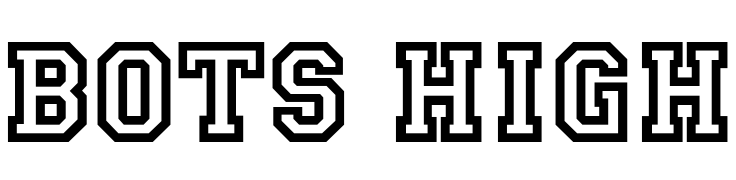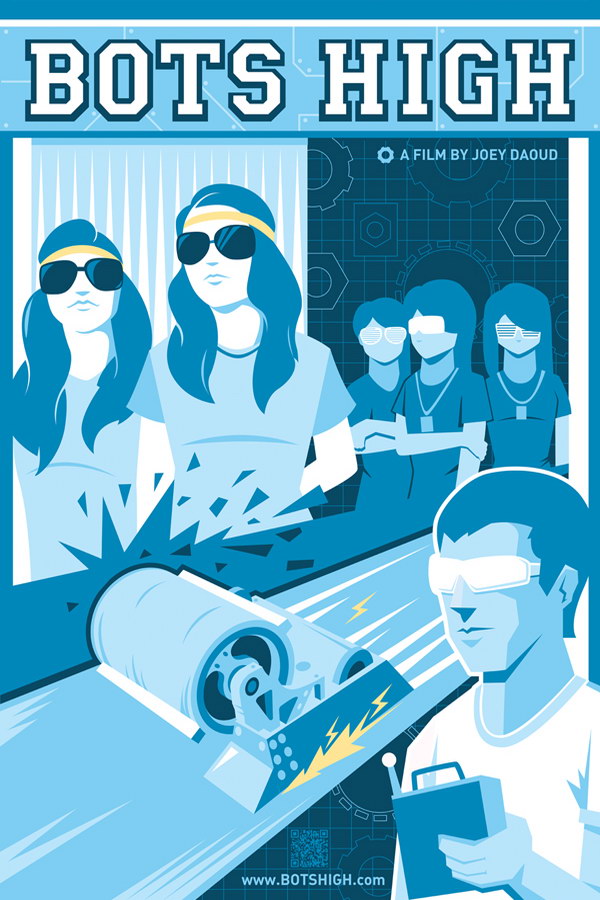
Bots High Font
DocumentaryBots High is a 2010 documentary film that explores the world of high school robotics teams and highlights the challenges and triumphs of building robots and competing in robotics competitions.
The movie title in the poster is designed based on a heavy outline font called Princeton, designed by Dick Jones. The font is available for commercial use and can be downloaded here.